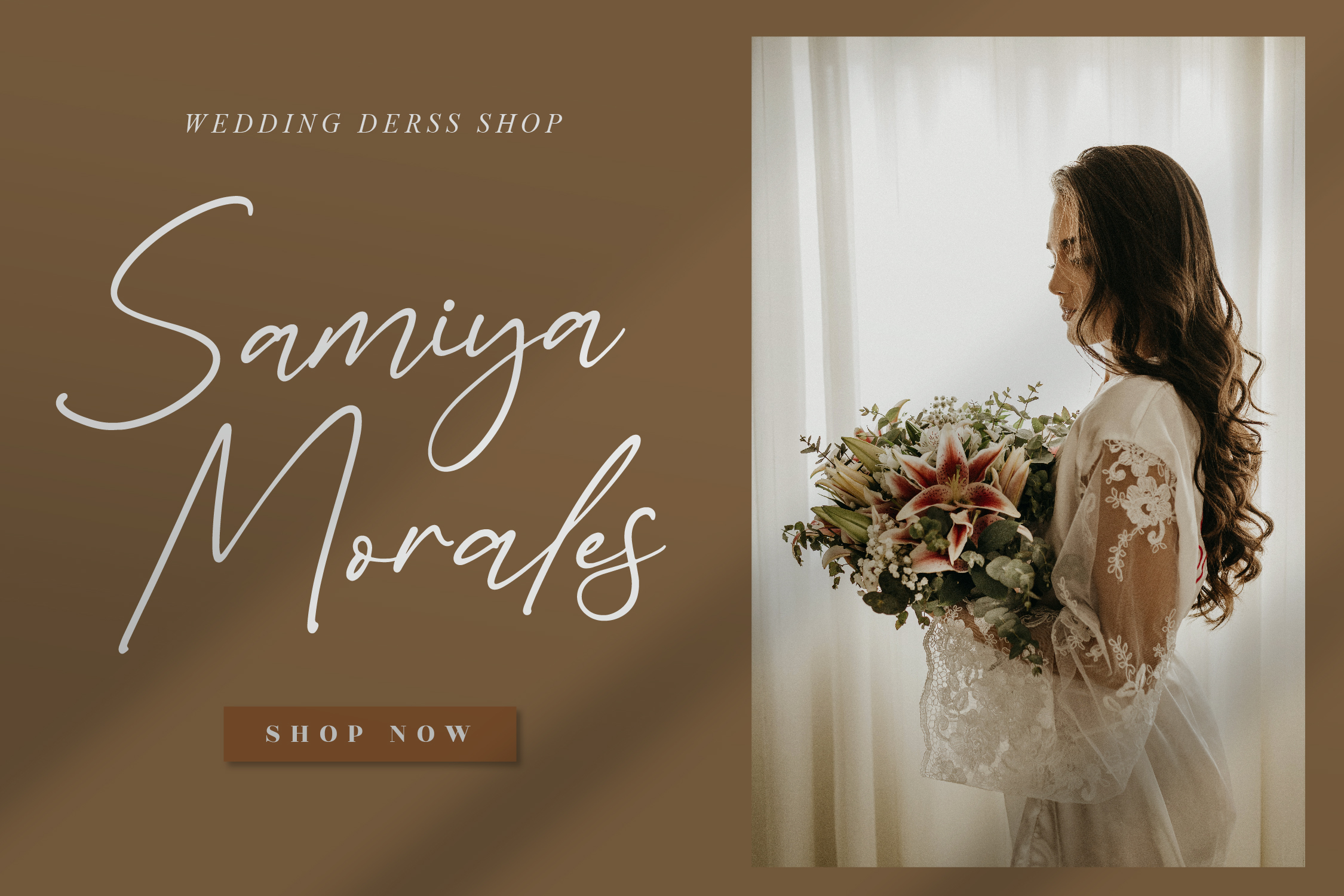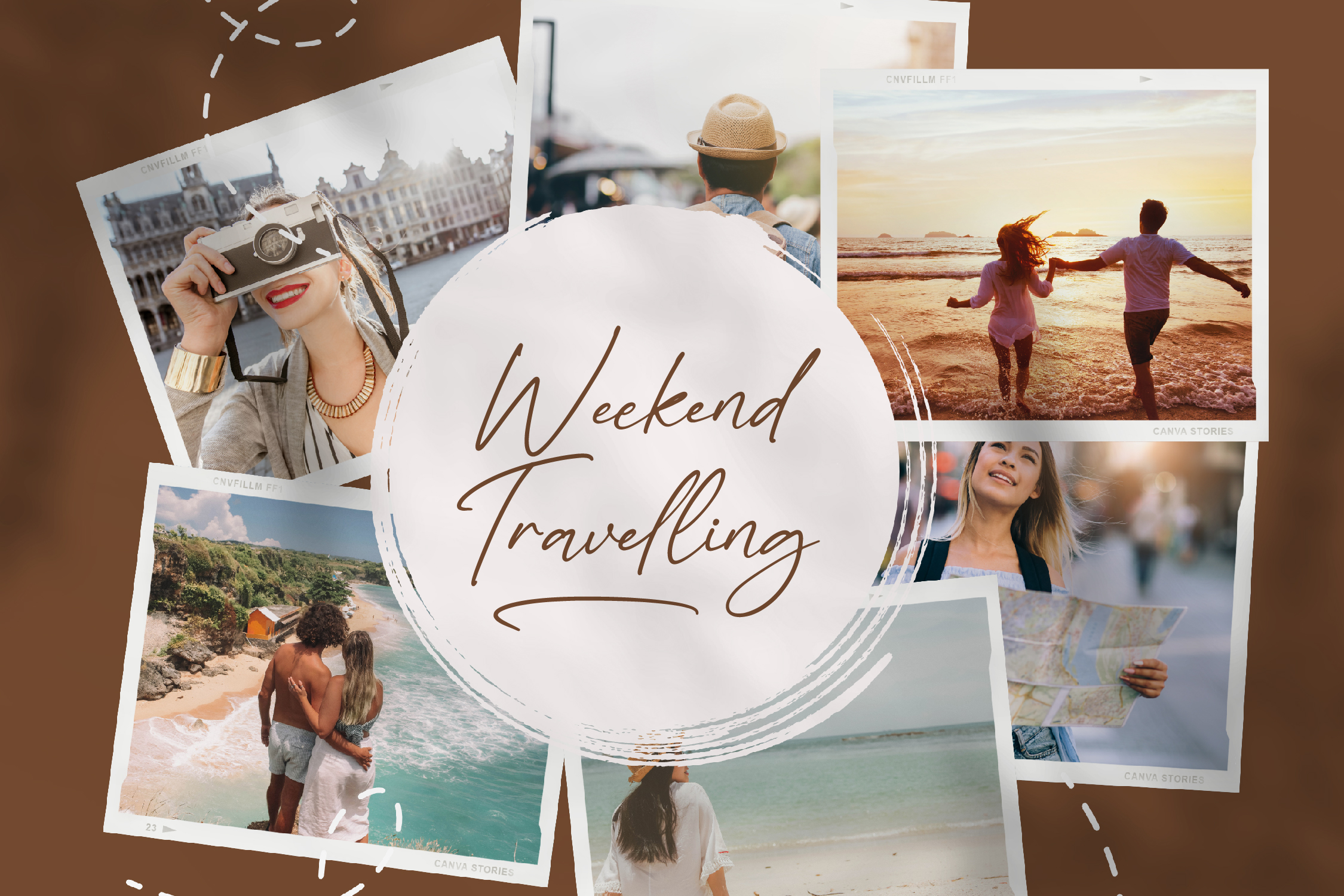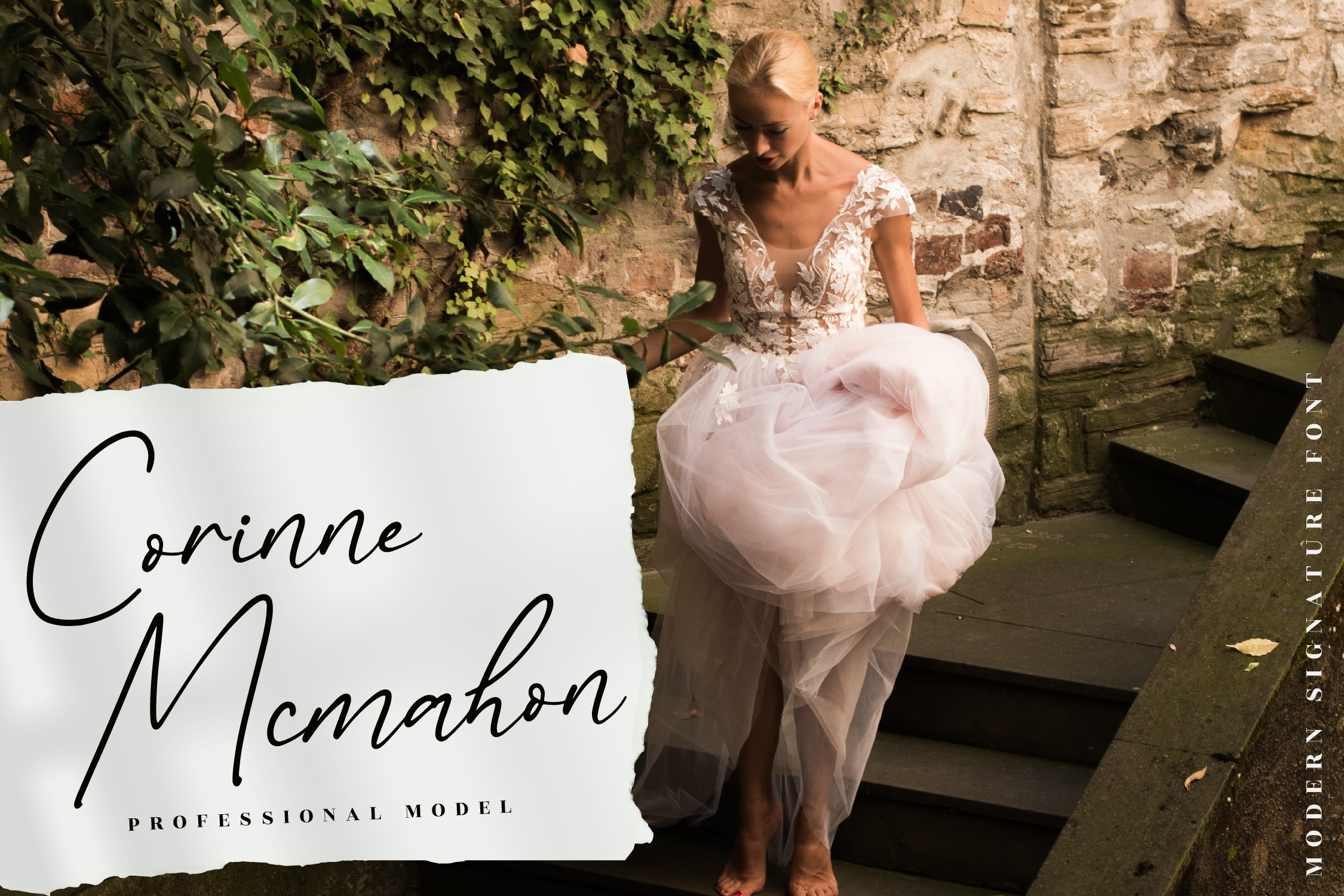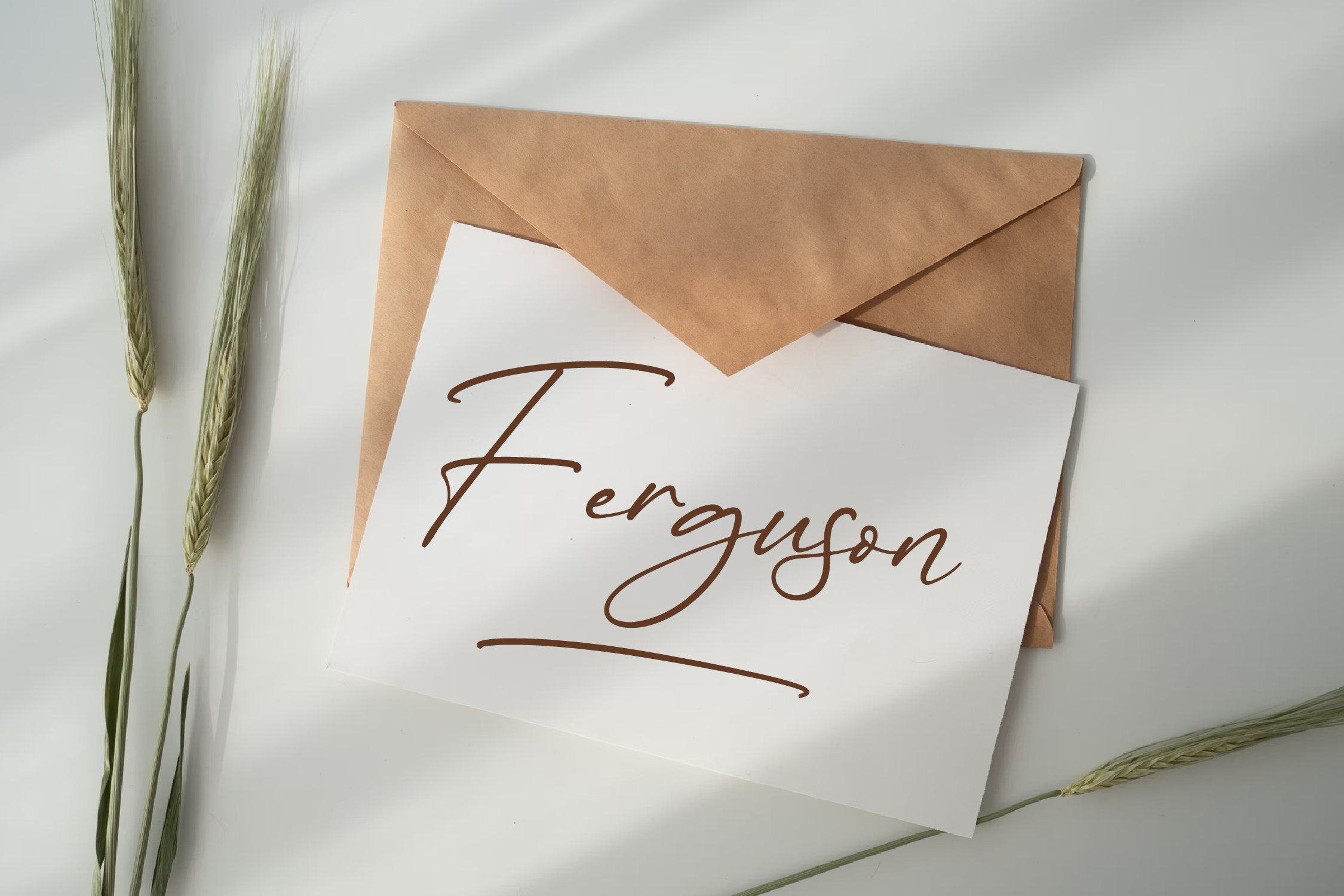
Thundersign Helgeria Font – Modern Signature Font, from Glorytype Studio, is a beautiful script font, suitable for any projects such as: logos, branding projects, homeware designs, product packaging, mugs, quotes, posters, shopping bags, t-shirts, book covers, name card, invitation cards, greeting cards, label, photography, watermark, special events, and all your other lovely projects that need a beautiful script taste.